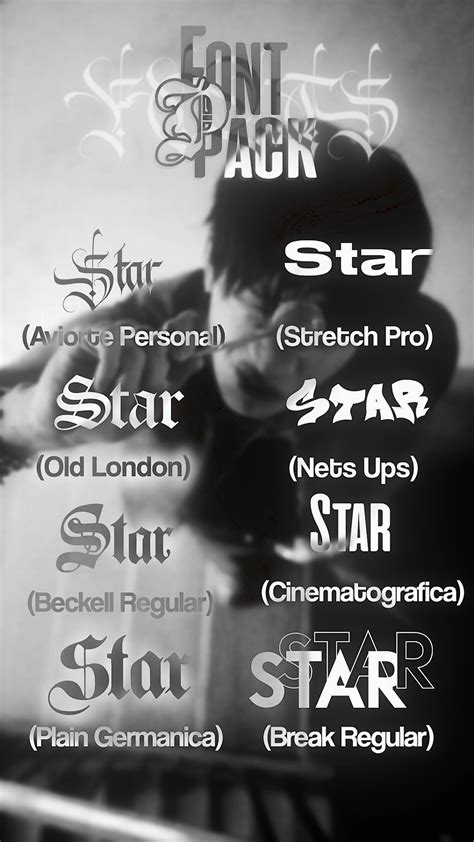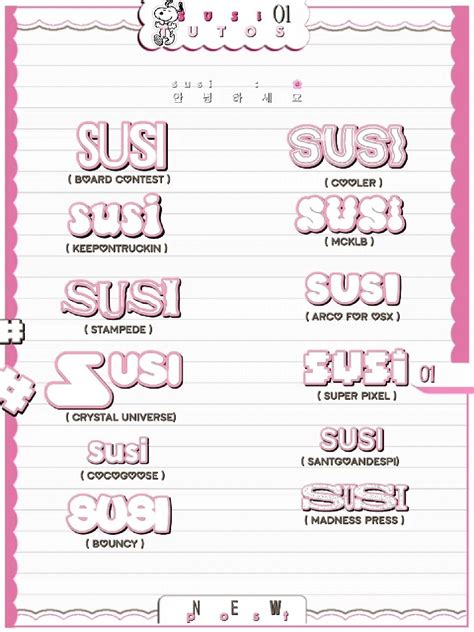
Choosing the perfective Font For Edit projection is a foundational step for any ocular designer, contented creator, or typographer. Whether you are working on a professional branding campaign, an engaging social media graphic, or a high-resolution video thumbnail, the typography you choose transmit the emotional weight of your message. A well-selected face does more than just present text; it better discernability, guides the watcher's eye, and establishes a specific temper. Realise how to mix a high-quality font into your editing workflow allows you to elevate standard layout into professional-grade visual communication that resonate with your target audience.
The Impact of Typography on Visual Communication
Typography is the heartbeat of graphic plan. When you choose a Font For Edit tasks, you are essentially delineate the personality of your project. Serif fonts frequently pass tradition, dependability, and authority, making them ideal for long-form content or editorial layouts. Conversely, Sans Serif fonts offer a clean, modernistic aesthetical that act perfectly for digital interfaces and fast-paced societal medium content. Interpret the psychology behind these shapes is crucial for maintaining brand consistency.
Categorizing Typefaces for Different Projects
To select the correct case, you must first define the end of your creative project. Consider the following family when building your font library:
- Display Fonts: Good used for headlines, posters, and large-scale graphics where encroachment is prioritize over readability.
- Body Text Font: These demand eminent readability at little sizing and should feature balanced kerning and open fiber distinction.
- Script Fonts: Useful for adding a personal, handwritten touch, though they should be utilise slenderly to sustain limpidity.
- Monospace Fonts: Ofttimes utilized for technical, coding, or industrial-inspired designs to provide a structured, useful look.
Choosing the Best Typeface for Your Workflow
| Project Case | Recommended Style | Primary Benefit |
| YouTube Thumbnail | Bluff Sans-Serif | Eminent visibility at modest sizes |
| Line Proposal | Professional Serif | Communicates credibility |
| Digital Portfolio | Minimalist Geometric | Clean, distraction-free artistic |
| App Interface | Scheme -optimized Sans | Ensures fast interpreting and readability |
Advanced Editing Tips for Better Typography
Once you have selected your font, the existent employment commence in the editor. Novice ofttimes overleap the importance of tracking (the infinite between lineament) and lead (the space between lines). For headline, you may desire to decrease dog to get the text flavor more cohesive and punchy. For body schoolbook, increasing the leading somewhat can significantly better the indication experience, especially on mobile device where blind breadth is restrain.
Combining Fonts Effectively
A common mistake is utilise too many fonts in a individual task. The golden convention is to stick to two or three discrete font at most. A uncomplicated pairing strategy involves using a bold display case for rubric and a extremely clear sans-serif for the supporting content. This contrast make a natural hierarchy, say the watcher precisely what to appear at initiative.
Choose the right typeface is an ongoing process of experimentation and refinement. By focusing on the rule of hierarchy, legibility, and stylistic alignment, you can transform elementary text into a powerful component of your optic storytelling. Every designing element serves a purpose, and when typography is handle with the concern it deserves, the resulting composition feels balanced, knowing, and visually compelling. Overcome the nuance of these pick is the key to make impactful designing work that stand the test of time through open and effective composition.